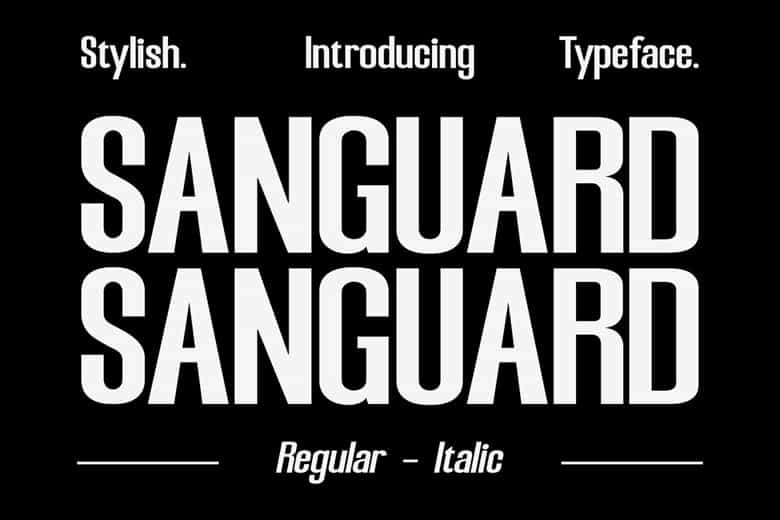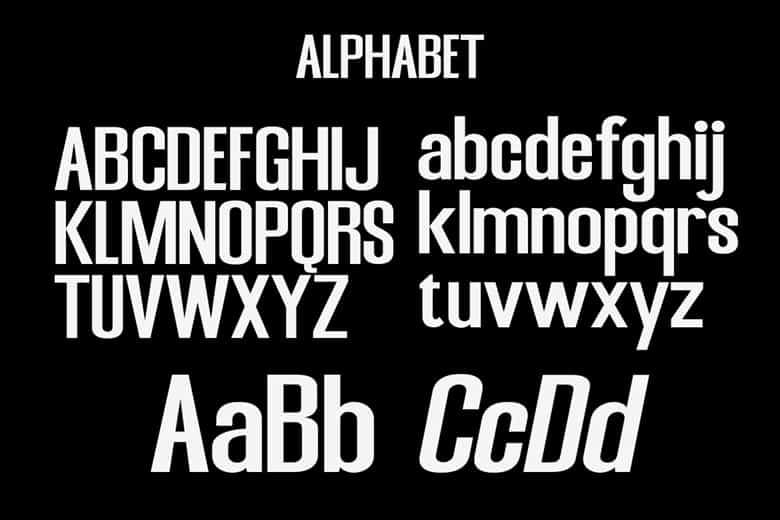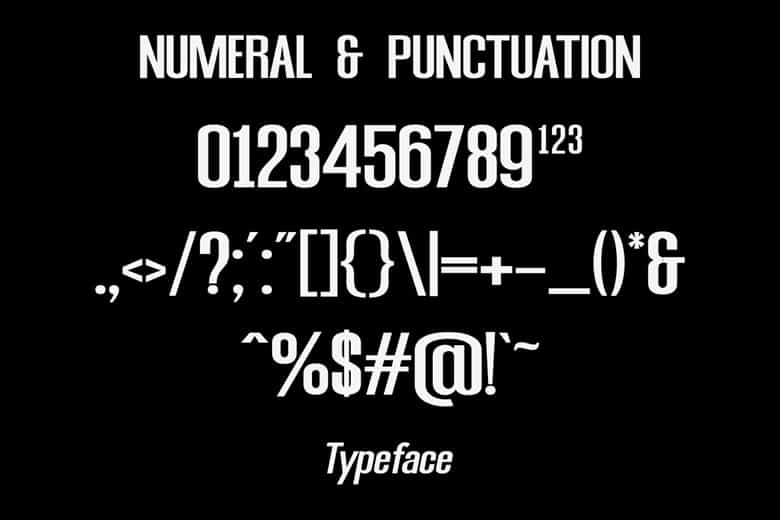
Sanguard is a new sans-serif font that has a clean cut and sophisticated style suitable for today’s visual designs. Possessing modern and sleek design, it provides a new and elegant perspective. Suitable for a number of applications, Sanguard injects a bit of the contemporary into your text, making it more professional.